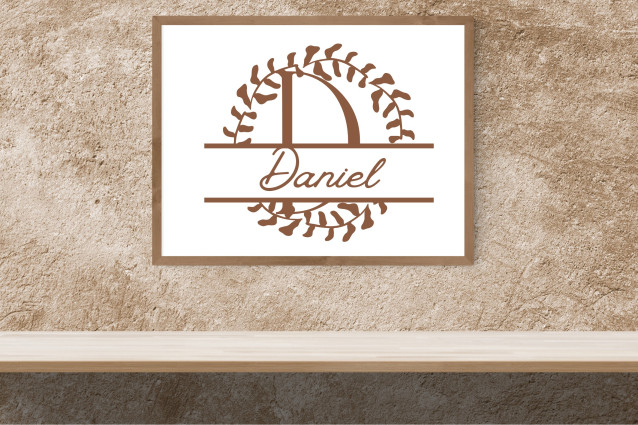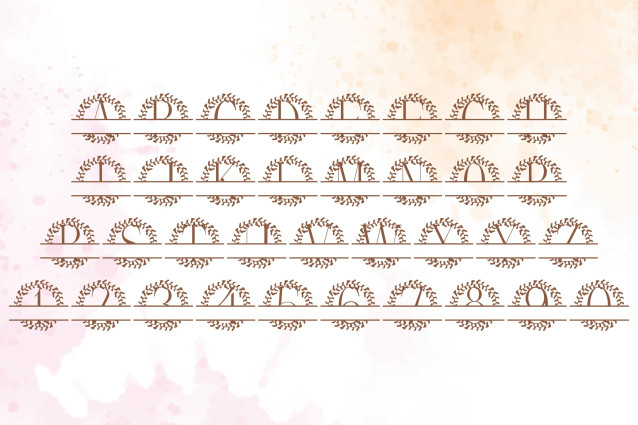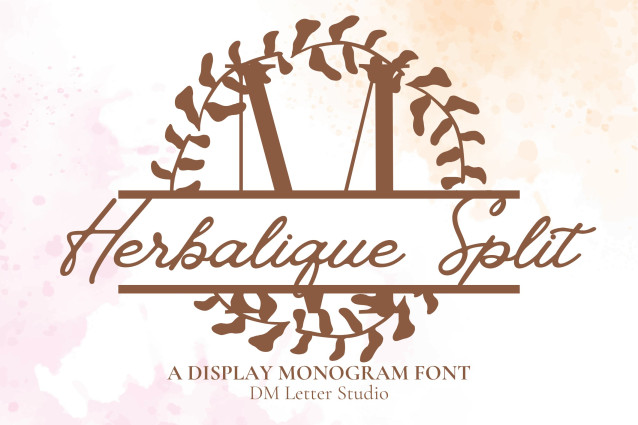
Herbalique Split Monogram Font
Herbalique Split Monogram Font is an elegant serif split font enhanced with graceful herbal and leafy accents. Each uppercase letter features a horizontal split for easy personalization with names, dates, or messages, while botanical details wrap around the letterforms for a natural, refined touch. Perfect for weddings, branding, signage, and personalized crafts, this font brings timeless beauty with a customizable design.